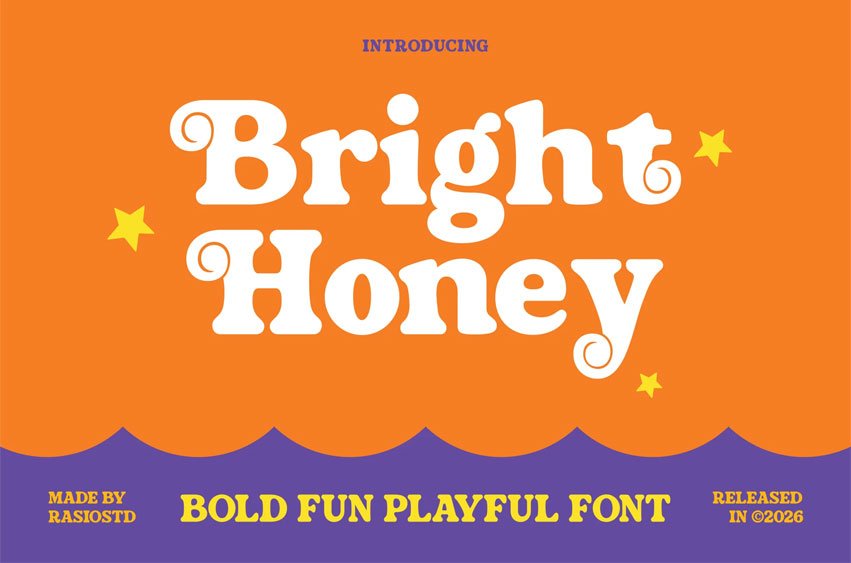
Bright Honey Font is a cheerful, bold display font that radiates fun and personality. Featuring quirky swirls on selected characters and bubbly rounded forms, it’s the perfect choice for playful branding, kids-themed projects, and retro-inspired visuals. This typeface includes full uppercase and lowercase sets, numbers, punctuation, and multilingual support, all designed with a vibrant tone.
Relevance and Use Cases is perfect for designers and creatives working in children’s entertainment, educational materials, party planning, or any project needing a lighthearted and bold visual identity. Its friendly curves and decorative flair make it the perfect fit for printables, logos, storybooks, cartoons, merchandise, and playful digital assets.